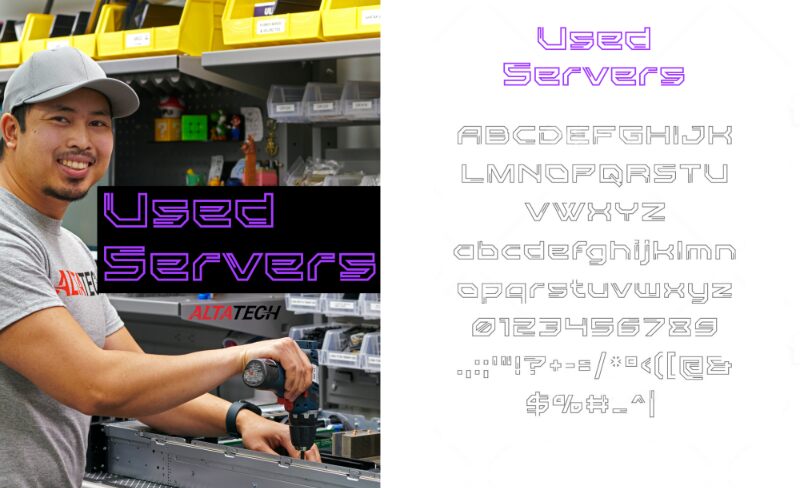
Used Servers Bold leaps from the screen with its techno, outlined style that encapsulates the spirit of vintage computing. Crafted by Alta Technologies, this striking display font evokes the sturdy elegance of classic server equipment from tech giants like Dell, HP, IBM, Lenovo, and Cisco UCS Servers. Its expanded letters give a nod to the robust frames of old DEC computers, creating a distinct presence that commands attention.
The aesthetic appeal of Used Servers Bold lies in its marriage of nostalgia with modern design sensibilities. With its bold outlines and industrial charm, it's a perfect choice for projects looking to channel retro tech vibes or make a statement in digital art pieces. Its expanded characters offer clarity and impact in larger displays such as headers or signage where you want your message to stand out with character and strength.
The family includes a standard style with an additional bold weight, suitable for all print uses.